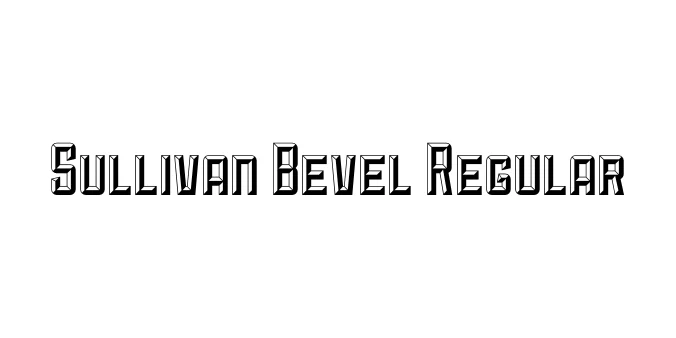
Sullivan Bevel Regular
Designed by Jason Mark Jones
Sullivan Bevel Regular is a bold, geometric display typeface meticulously crafted by designer Jason Mark Jones for the Lost Type Co-op. This typeface is part of a unique layered family, where the bevel style provides a distinct three-dimensional character inspired by classic industrial signage and vintage woodblock lettering. Its structure is built on heavy slab proportions, making it an exceptionally powerful choice for any design that requires high impact and a sense of historical durability.
The font is characterized by its sharp 45-degree angles and clean, modern lines that pay homage to traditional athletic typography. Because it was designed to be layered with its 'Fill' and 'Regular' counterparts, the Bevel version adds a sophisticated level of detail and depth to layouts without sacrificing legibility. It remains a staple for designers looking to evoke a sense of craftsmanship and mid-century Americana in contemporary digital and print projects.
Sullivan Bevel Regular Best Uses
Creating strong, masculine brand identities and impactful wordmarks.
Perfect for collegiate-style t-shirts, sports jerseys, and streetwear graphics.
High-impact headlines for event flyers and promotional indoor/outdoor media.
Ideal for storefront lettering and environmental graphics seeking a retro industrial look.